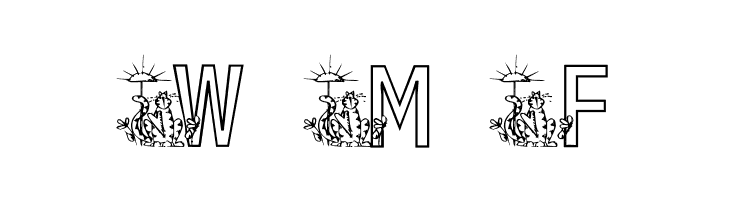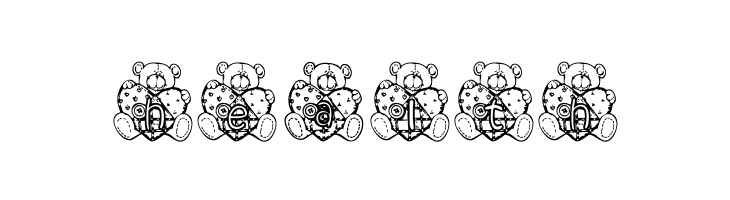
A whimsical font with letters inside teddy bear designs, perfect for playful projects.
A whimsical font with owl-decorated uppercase letters and clean lowercase outlines.
A playful font with cartoon characters accompanying each letter.
A decorative font with NYC-themed illustrations integrated into each letter.
A whimsical, decorative font with cartoon-like characters integrated into each letter.
An ornate and decorative font with floral embellishments.
A whimsical, illustrated font inspired by nursery rhymes, perfect for decorative uses.
A whimsical, cow-themed decorative font with bold, outlined characters.
A whimsical font with monkey illustrations integrated into each character.
A whimsical, monkey-themed decorative font perfect for playful designs.